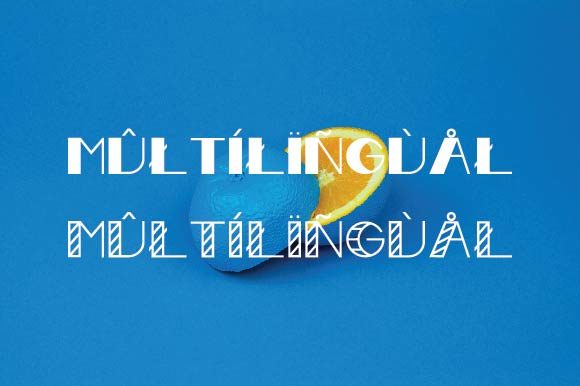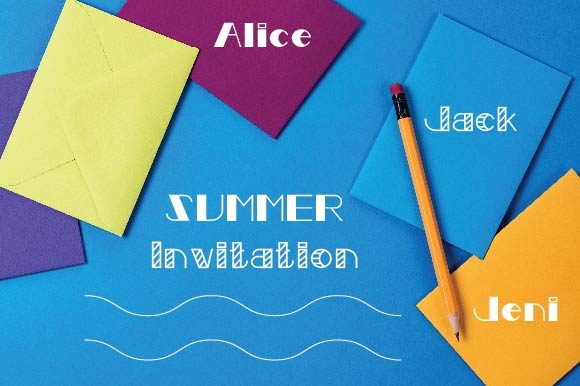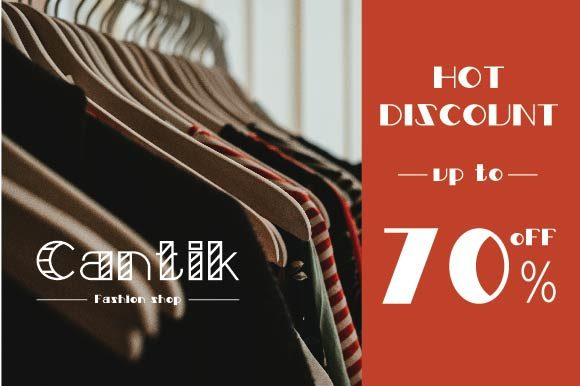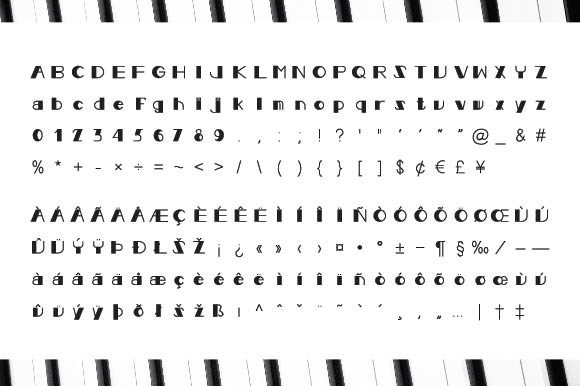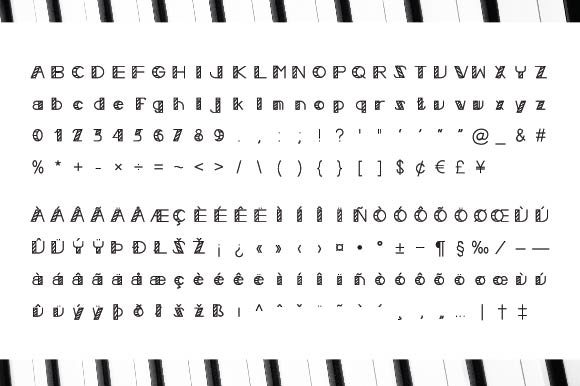
Discover the Whimsy of the Barlin Font
You know that moment when you’re brainstorming ideas and suddenly, a spark of creativity hits you? It’s like the entire design world opens up, and you can’t wait to bring your vision to life. For designers, this feeling is what drives us to experiment, to try new things, and to push the boundaries of what’s possible. And sometimes, all it takes is the right font to set the tone for an entire project.
Enter the Barlin Font, a fun and breezy sans serif font that’s packed with charm. Its unique, striped characters are sure to add a playful touch to any design. Whether you’re working on a children’s book, a marketing campaign, or a personal project, the Barlin Font is the perfect companion to help you bring your ideas to life. As a designer, you know how valuable a great font can be in elevating your work and making it stand out.
Barlin Font Key Features
- Unique Characteristics: Barlin Font features a unique blend of modern and vintage elements, making it suitable for a wide range of design projects, from contemporary to classic styles.
Barlin Font Review
Overall, I was excited to dive into the Barlin Font and see what it had to offer. Here’s my honest review.
- ✨ Beautifully crafted letterforms: The Barlin Font features elegant, refined lettering that’s perfect for high-end branding and design projects.
- ✨ Versatile: Whether you’re working on a modern website, a luxury brochure, or a premium app, Barlin Font has got you covered.
- ✨ Customizable: The font includes a range of styles and weights, allowing you to tailor the look to your specific needs.
- ⚠️ Limited language support: Barlin Font seems to be geared more towards Western languages, which might be a limitation for designers working on international projects.
- ⚠️ Not ideal for body text: While the font looks stunning in headings and titles, it may not be the best choice for large blocks of body text.
Overall, I think the Barlin Font is a great addition to any designer’s toolkit. While it may have some limitations, its beauty and versatility make it a solid choice for high-end design projects.
The Barlin font is ideal for use in modern, minimalist designs. It is commonly used in:
– Business cards
– Brochures
– Posters
Getting the Most Out of the Barlin Font
To get the most out of the Barlin font, consider the following tips:
– Use it in combination with clean, simple designs.
– Experiment with different font sizes and styles.
– Pair it with a clear, legible font for body text.
Alternatives to Barlin Font
Open Sans is a modern sans-serif font that is highly legible and versatile. It is suitable for body text and headings. Use Open Sans when you need a clean and simple font that works well in digital environments.
Open Sans is more modern and sleek compared to Barlin Font. It has a more open feel to it, making it ideal for digital applications. Barlin Font, on the other hand, has a more traditional feel to it.
Lato is a sans-serif font that is highly customizable and versatile. It has a clean and modern feel to it, making it suitable for body text and headings. Use Lato when you need a font that is both elegant and functional.
Lato is more elegant and refined compared to Barlin Font. It has a more polished feel to it, making it ideal for applications that require a high level of sophistication.